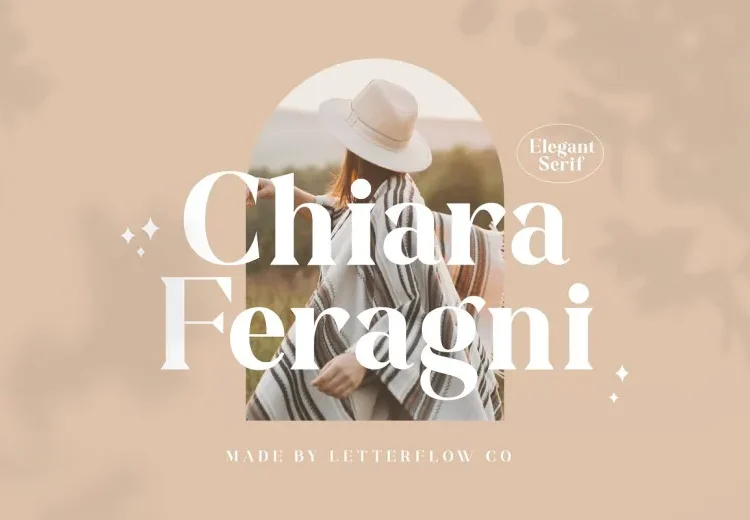
Chiara Feragni Font
Chiara Feragni is an iconic serif typeface that brings elegance and sophistication to any project. Its classic design and refined letterforms make it a versatile choice for a wide range of topics and creative endeavors. Whether you’re working on branding, editorial layouts, or digital projects, this font effortlessly elevates the visual appeal of your work.
Perfectly suited for projects that demand a touch of class, Chiara Feragni adds depth and character to logos, headlines, and body text alike. Its graceful curves and striking presence ensure your designs stand out, creating a lasting impression on any audience.
This timeless serif is ideal for adding a professional and polished finish to invitations, book covers, advertising materials, and more. The Chiara Feragni typeface seamlessly enhances the aesthetics of every design, turning ordinary ideas into extraordinary visuals.